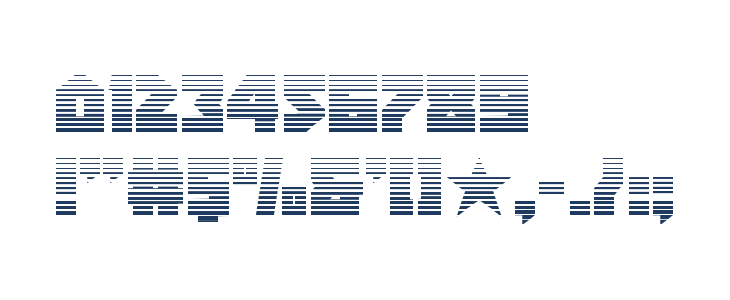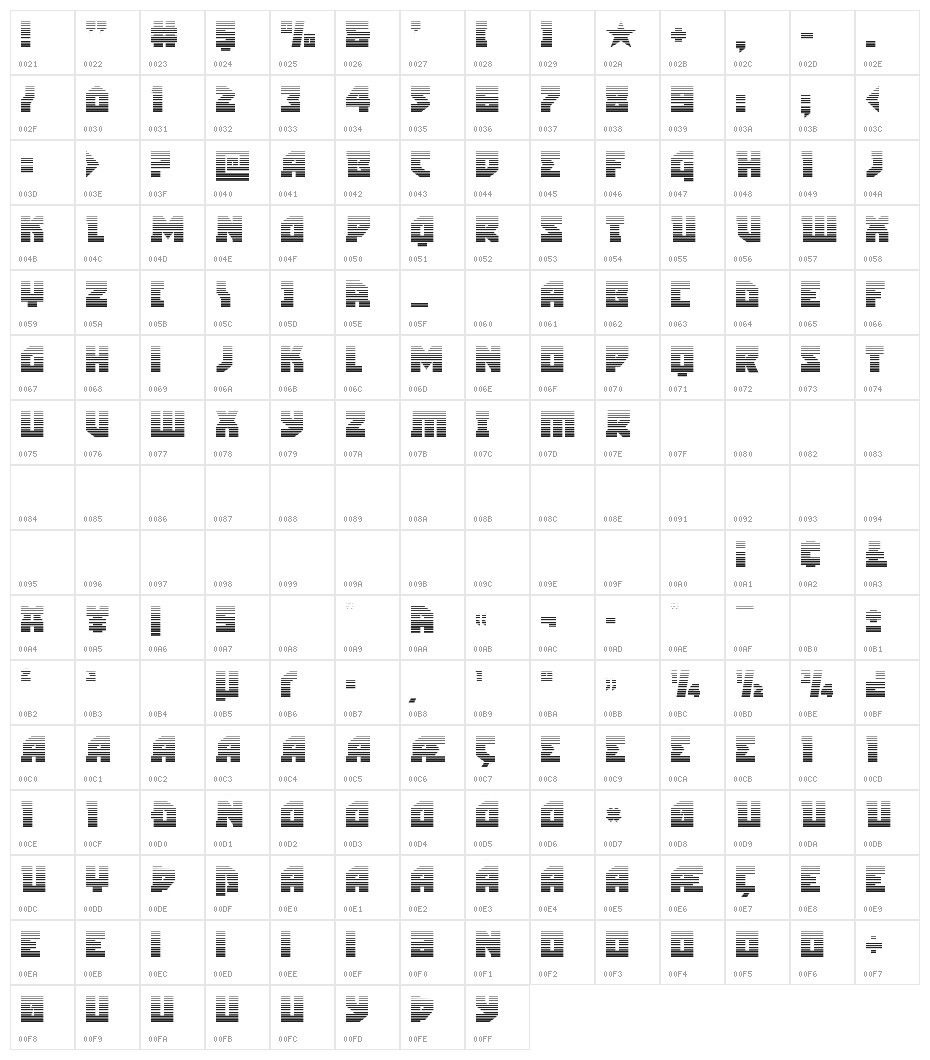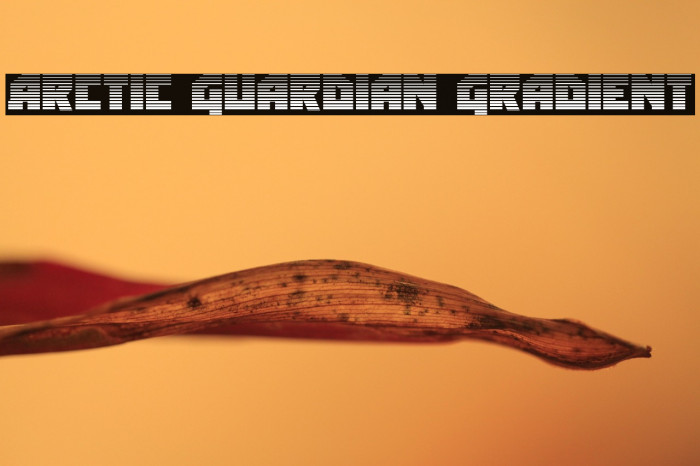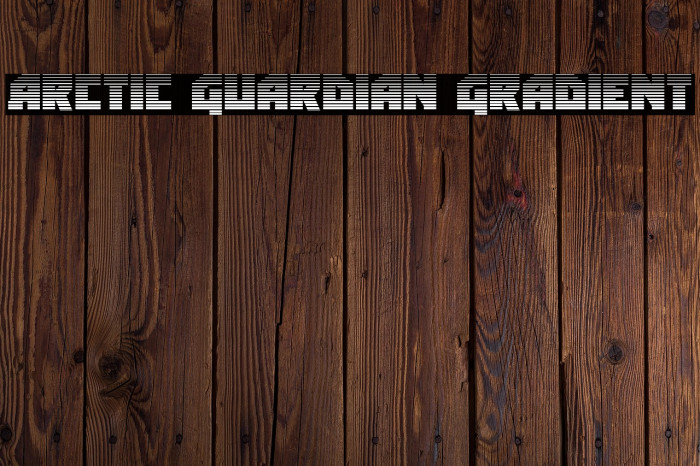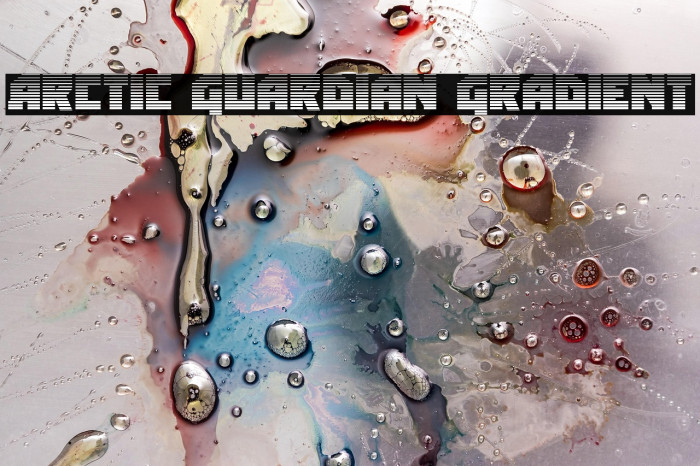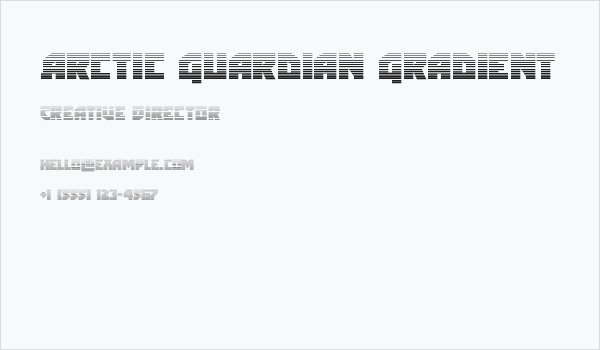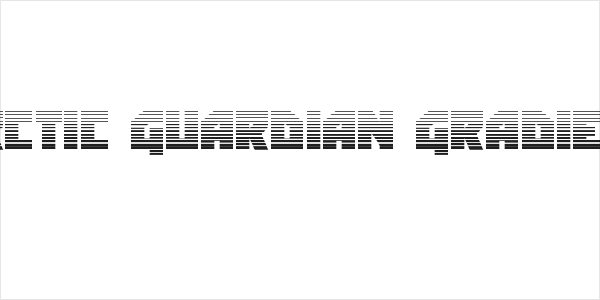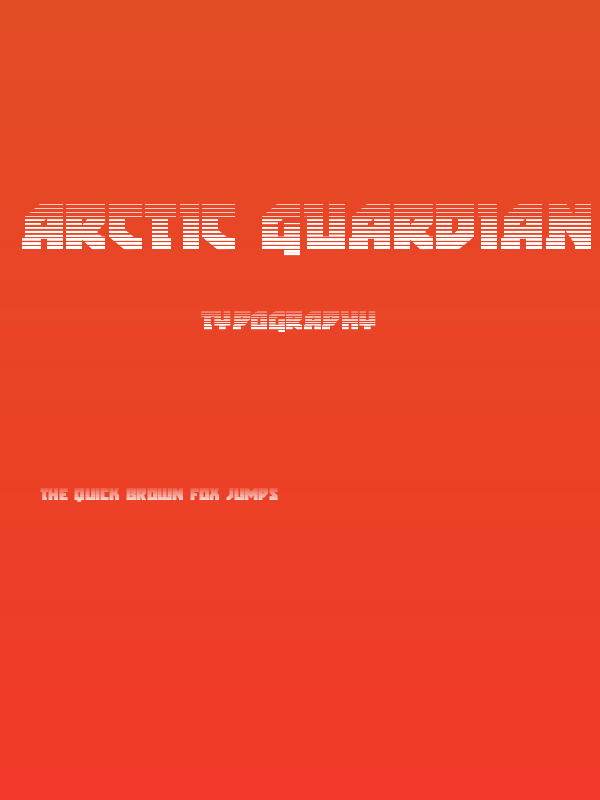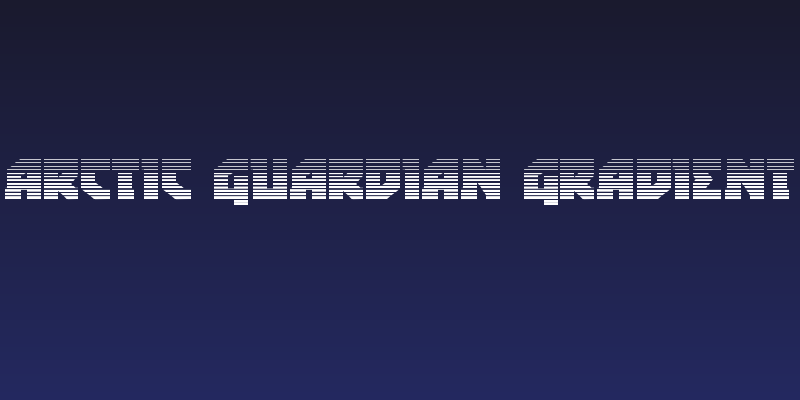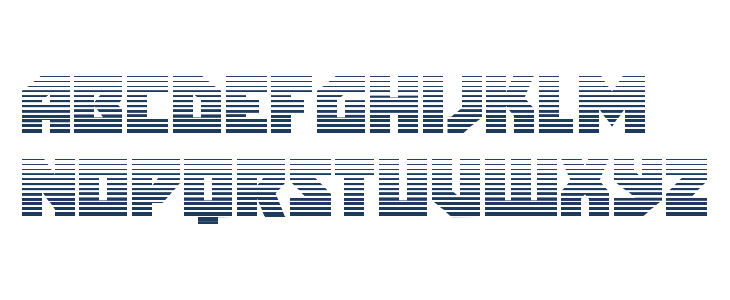
Arctic Guardian Gradient Font
Arctic Guardian Gradient Description
This font features a bold, geometric design with a distinctive striped pattern that creates a gradient effect. Each character is constructed with horizontal lines that vary in thickness, giving the font a dynamic and modern appearance. The uppercase and lowercase letters maintain a consistent style, with sharp angles and clean edges that enhance its futuristic look. The numerals and special characters are equally bold, ensuring uniformity across all glyphs. This font is ideal for projects that require a strong visual impact and a contemporary aesthetic.